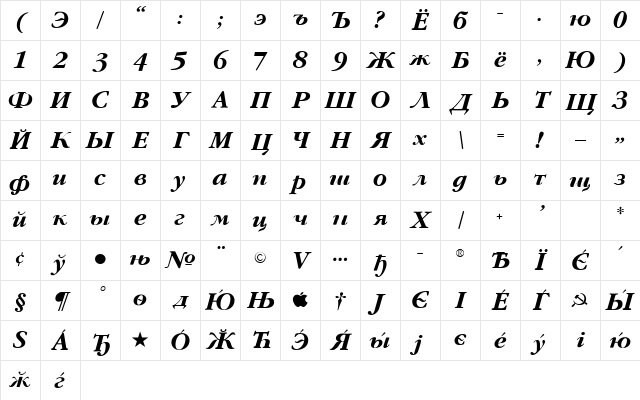
Complete GaramondFLFCyrillic-BolIta Regular glyph index. Displaying only characters natively supported by GaramondFLFCyrillic-BolIta Regular font.
GaramondFLFCyrillic-BolIta is a composed and adaptable typeface that performs quietly and consistently across a wide range of design contexts.
Pro Tip: Use GaramondFLFCyrillic-BolIta in both headline and body roles to test its range before committing to a single application.